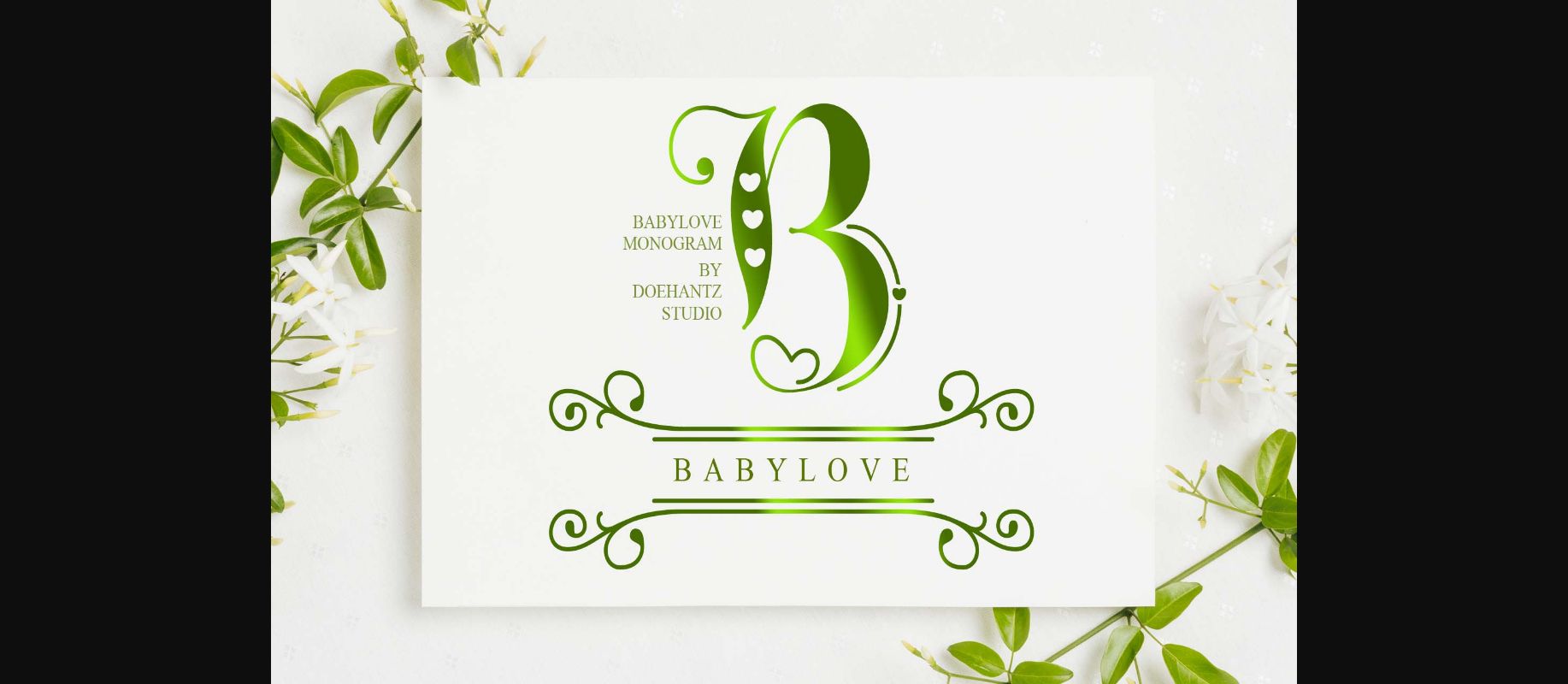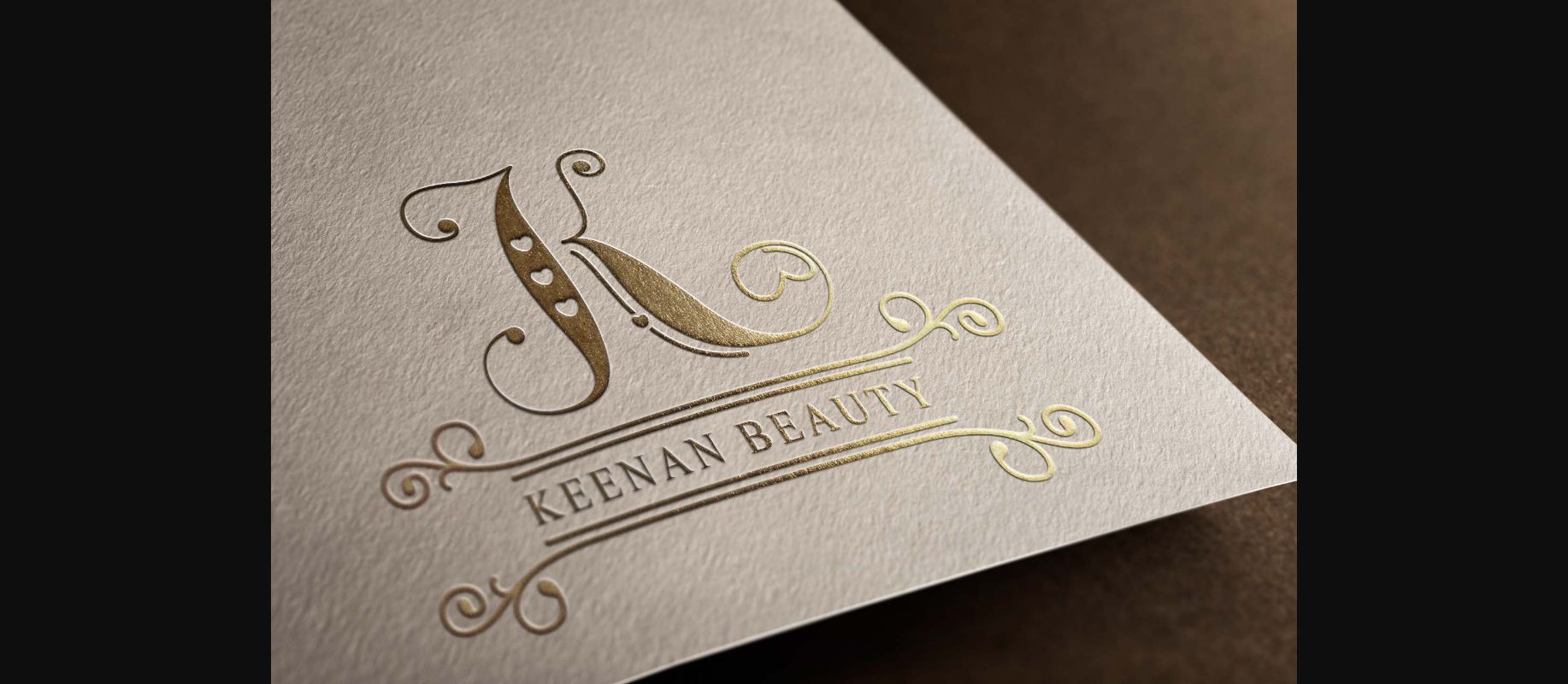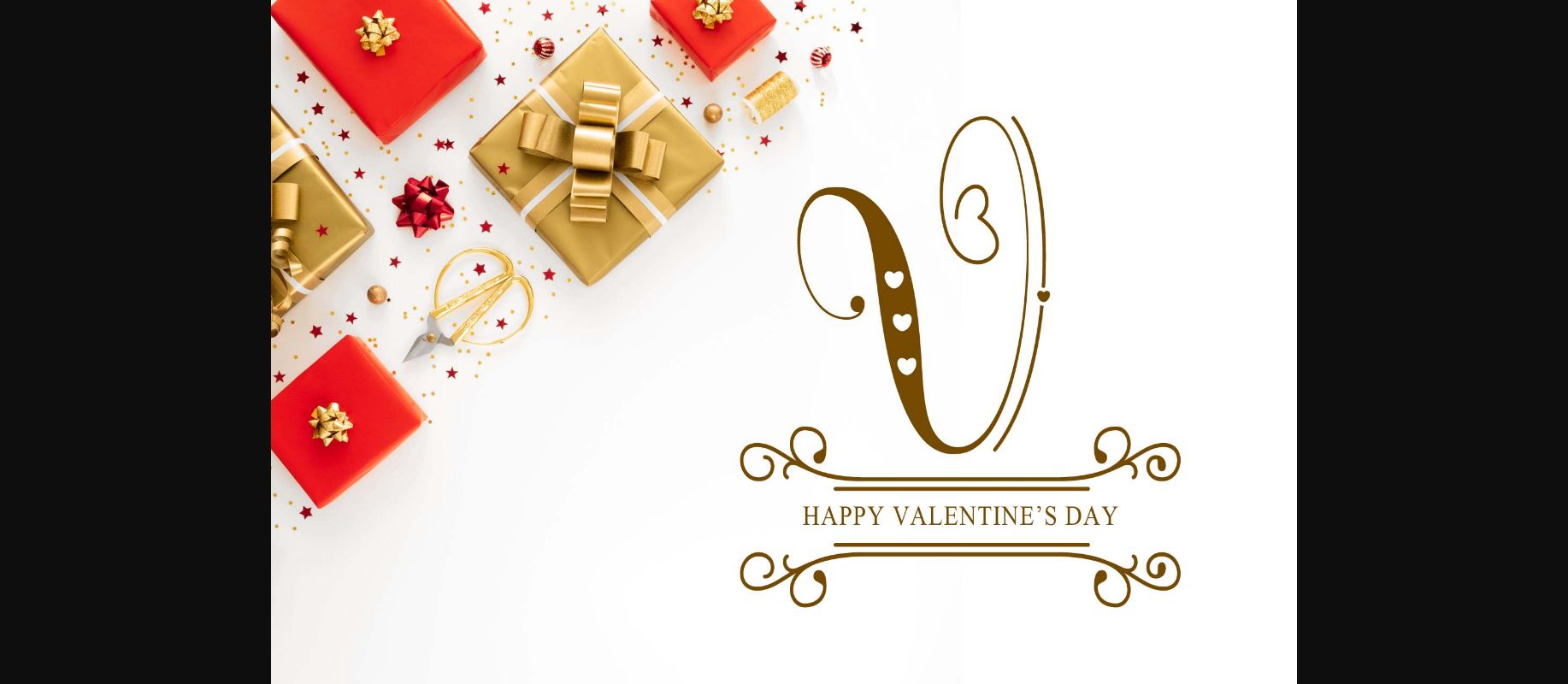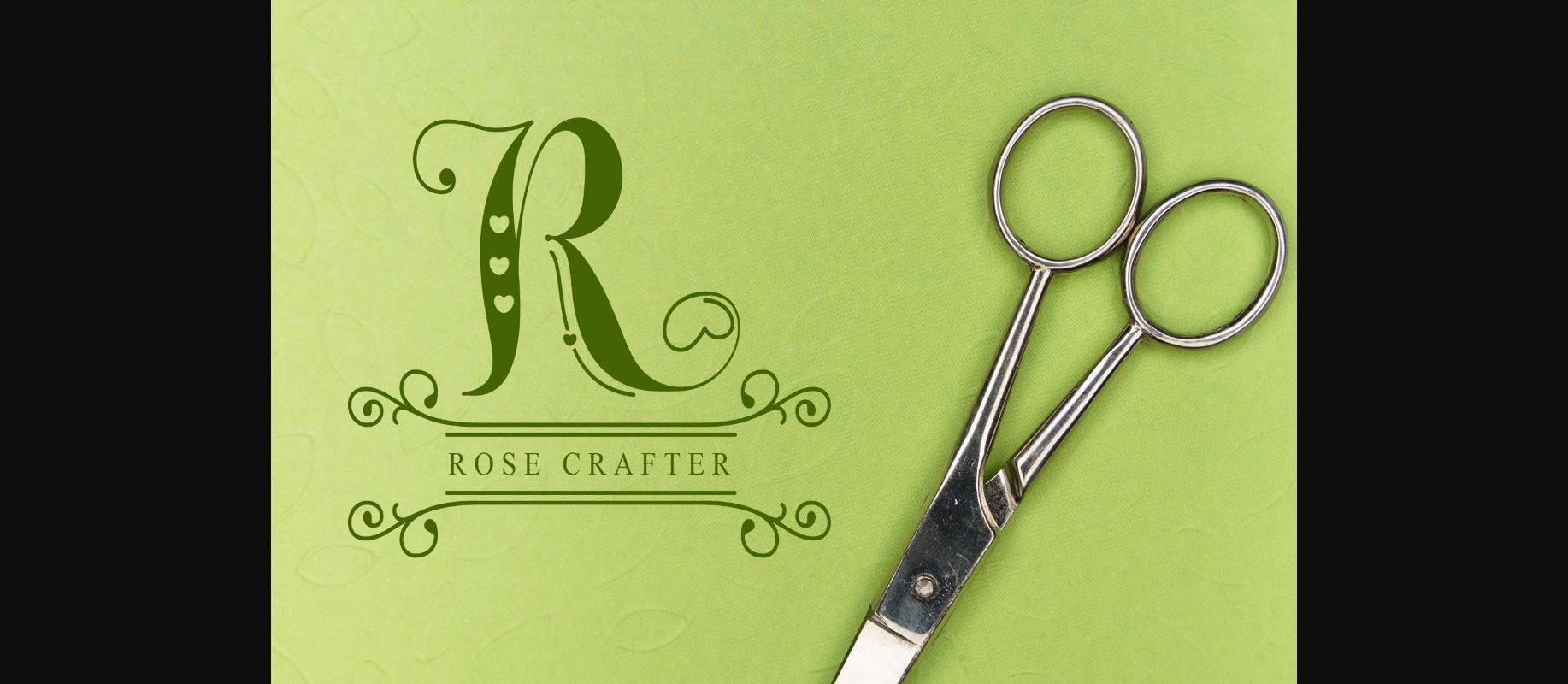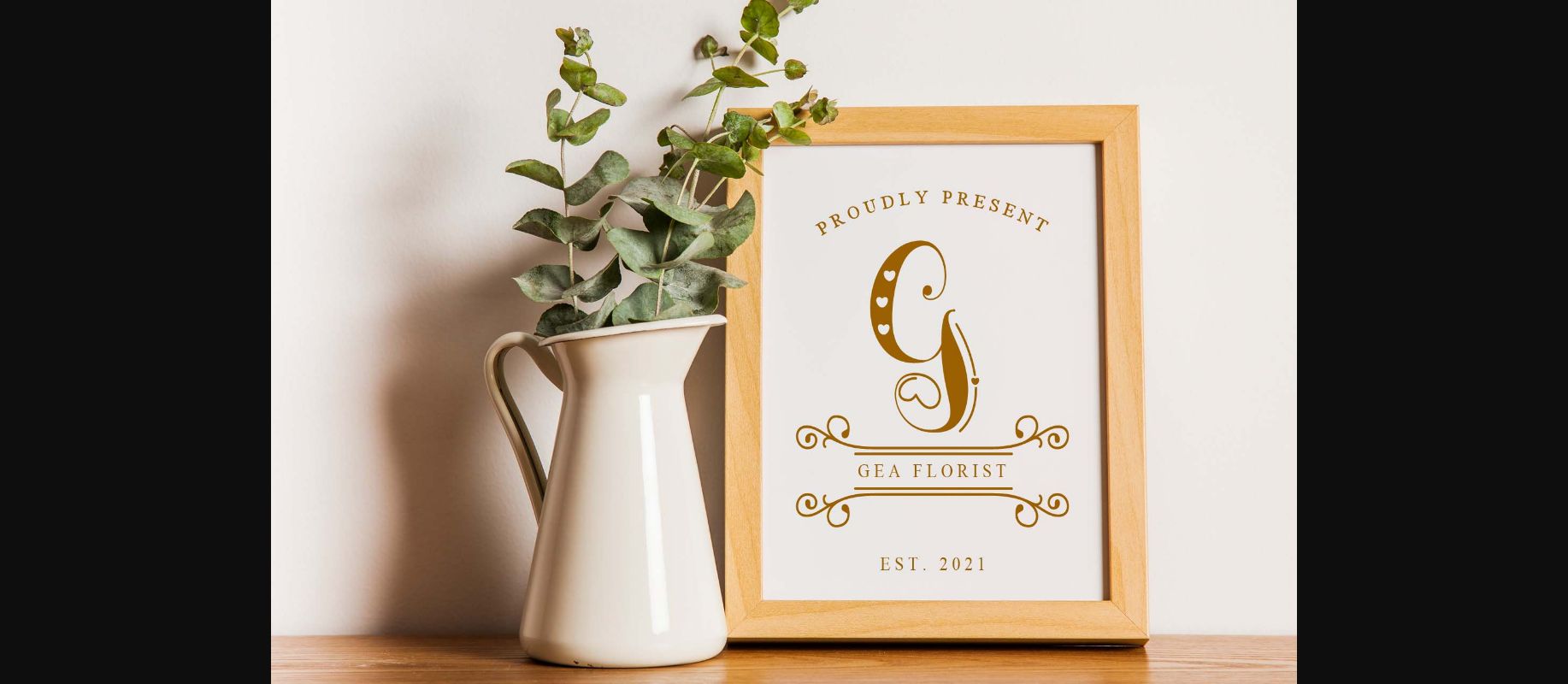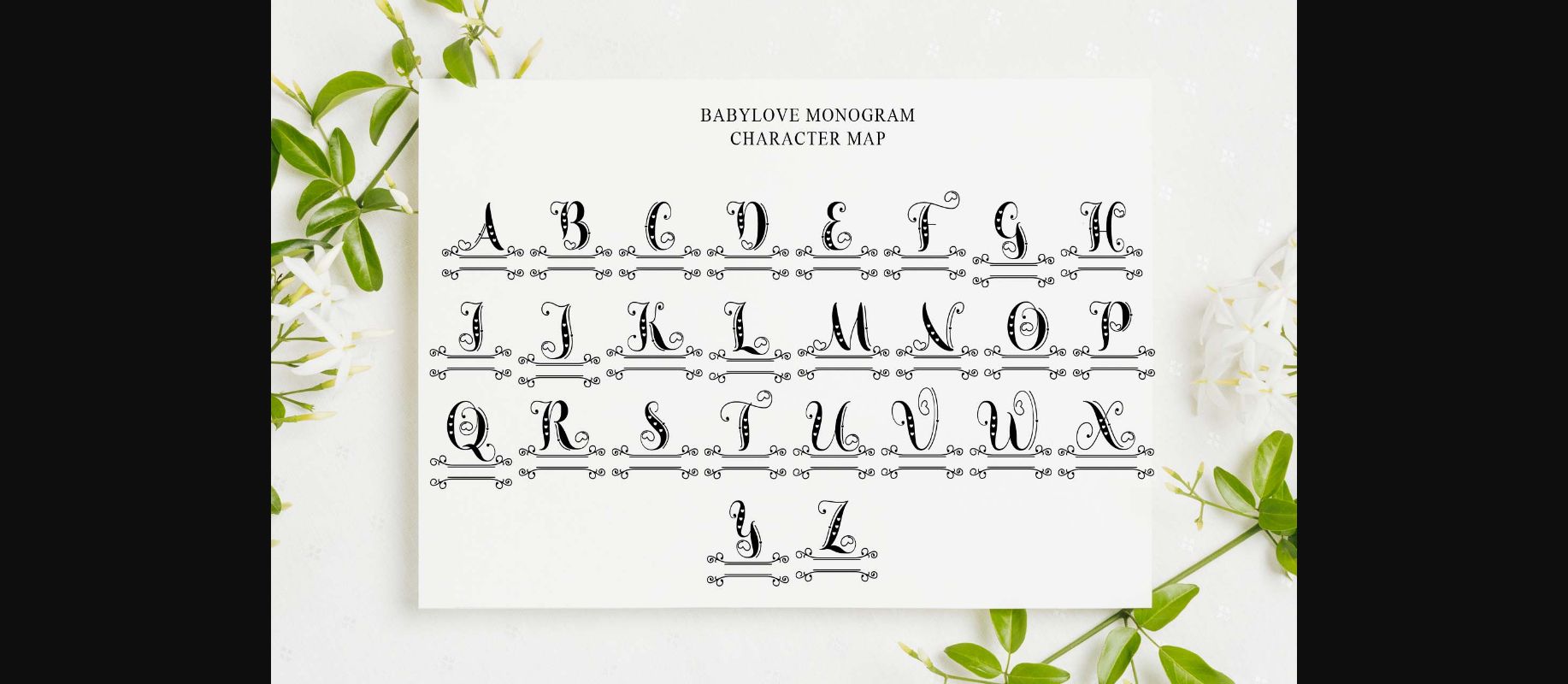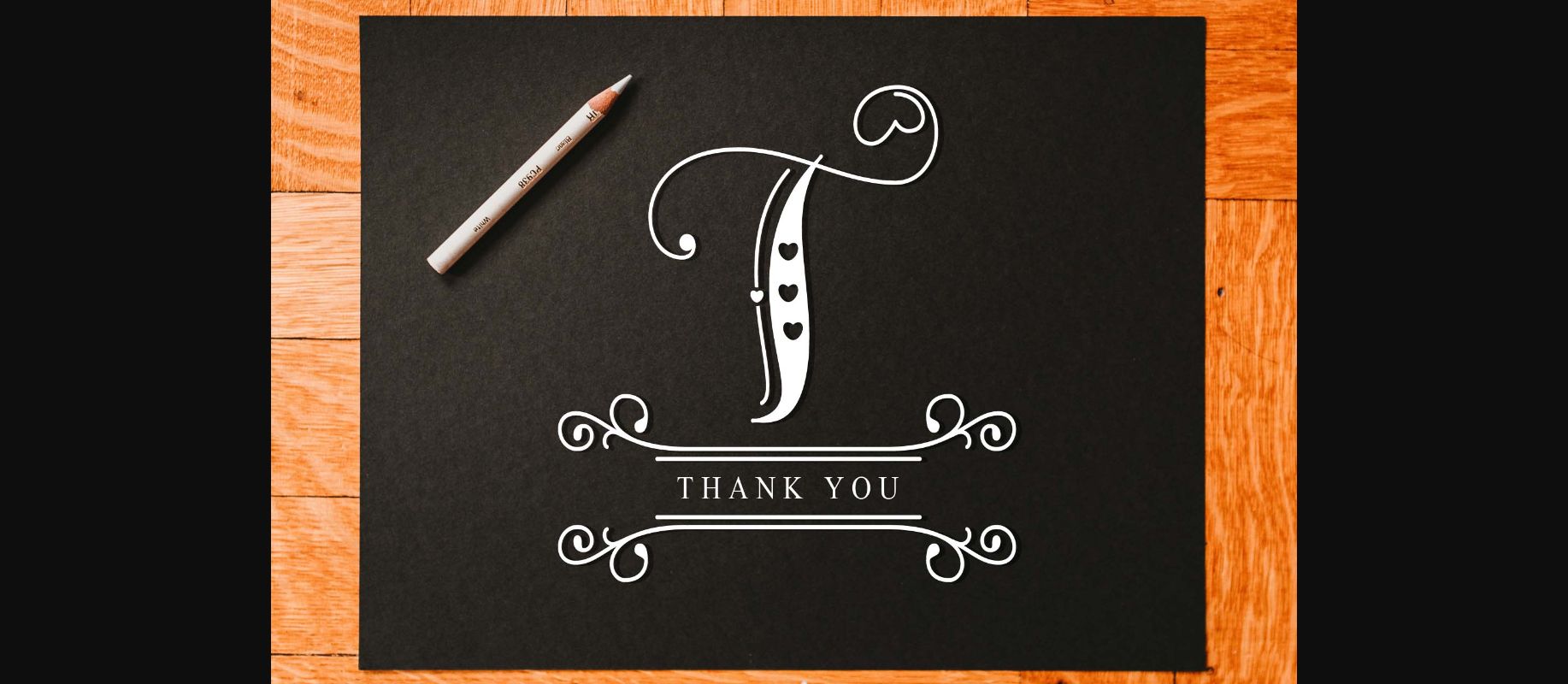
About Babylove Monogram Font
Babylove Monogram is a sweet decorative font. Fall in love with its authentic feel and use it to create gorgeous wedding invitations, beautiful stationary art, eye-catching social media posts, and cute greeting cards.